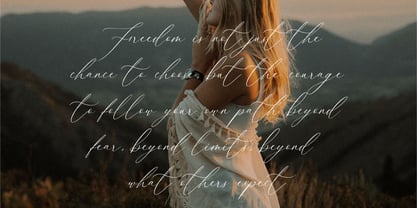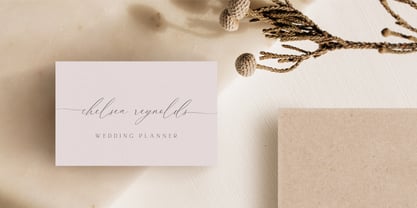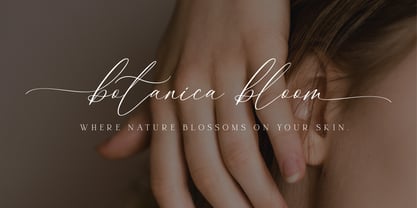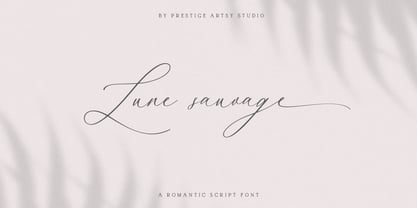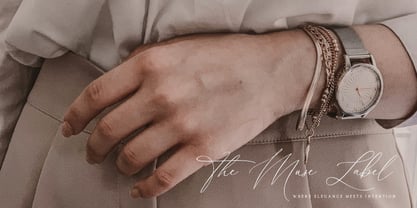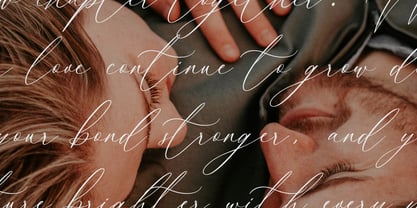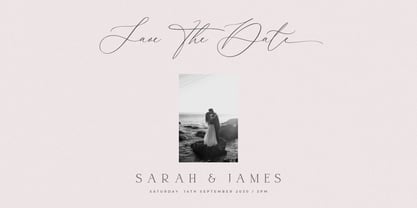
Lune Sauvage
by Prestige Artsy Studio
The Lune Sauvage Font Family was designed by Zak M and published by Prestige Artsy Studio. Lune Sauvage contains 1 styles. More about this family
Introducing Lune Sauvage Script – a calligraphy font that dances between elegance and wild romance, designed for the modern creative who appreciates both refinement and expressive flair. Inspired by the fluidity of handwritten letters and the natural grace of untamed beauty, Lune Sauvage is more than just a typeface – it's a celebration of artistry, femininity, and storytelling through every curve and stroke.
Crafted with meticulous attention to detail, Lune Sauvage Script features graceful letterforms that effortlessly connect, making it ideal for projects that require a delicate and polished look. Its sophisticated flow is enhanced by beautifully designed left and right swashes, giving your words a sense of movement and rhythm that brings them to life. These ornamental flourishes are perfect for creating show-stopping headlines, names, or phrases that leave a lasting impression.
Whether you’re designing a romantic wedding invitation, a high-end logo, chic product packaging, or a heartfelt quote for a Cricut craft project,Lune Sauvage adapts beautifully. It’s that rare blend of classic calligraphy with a modern twist – simultaneously timeless and on-trend. From delicate stationery to bold branding, the font brings an air of charm and character to any medium.
Every letter of Lune Sauvage was designed with intention – to evoke emotion and elegance, whether used in a single-line signature logo or an elaborate wedding suite. With its wide array of international characters, you can create in multiple languages without losing the font’s distinctive beauty.
This font was made for creatives, crafters, and storytellers. Use it to add a luxurious, handmade feel to your work – or go bold with swashes that extend beyond the baseline, adding visual drama and flair. The options are as limitless as your imagination.
Let your creativity run wild with Lune Sauvage Script.
Designers: Zak M
Foundry: Prestige Artsy Studio